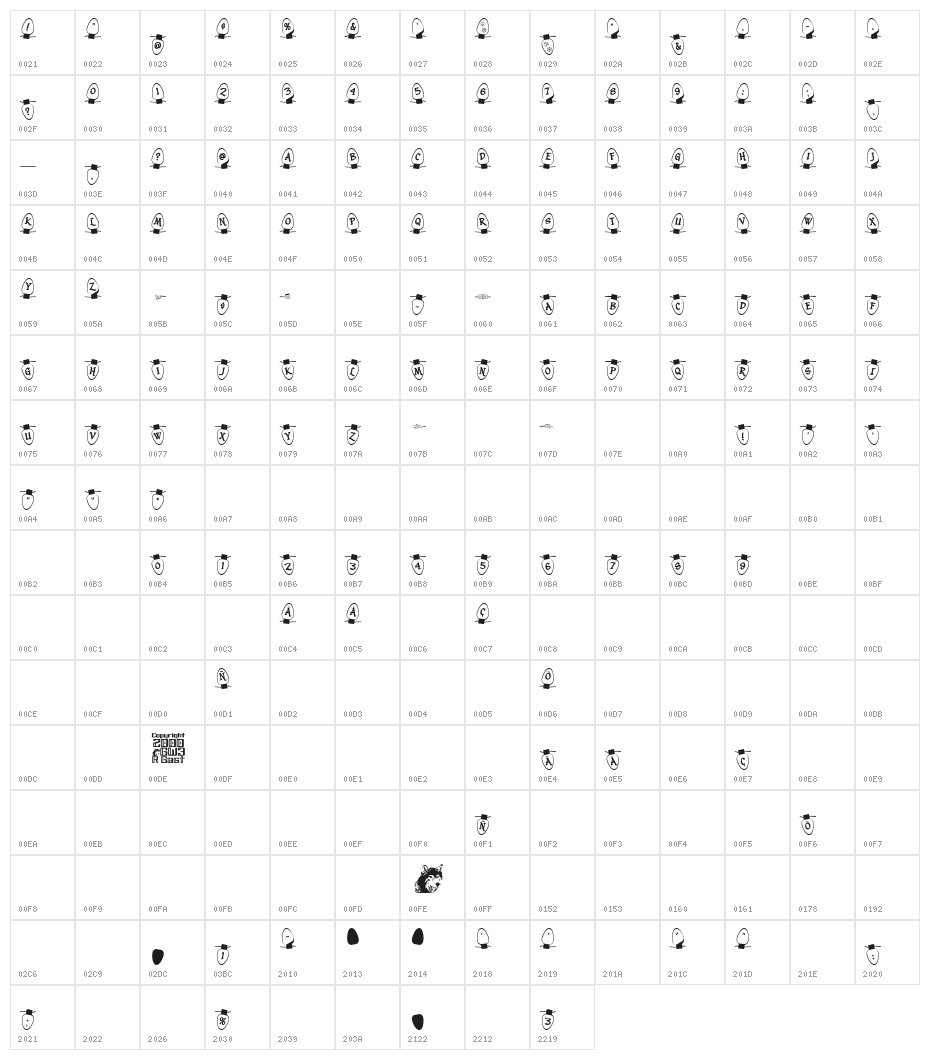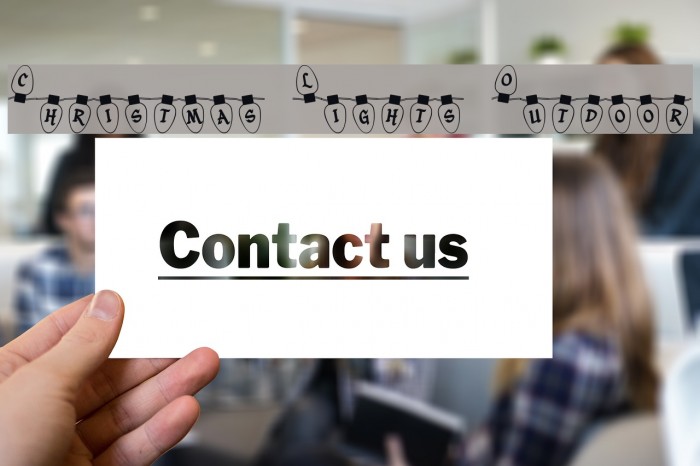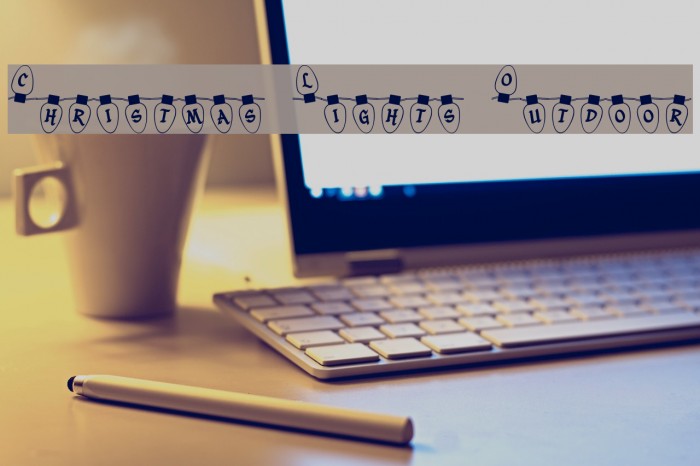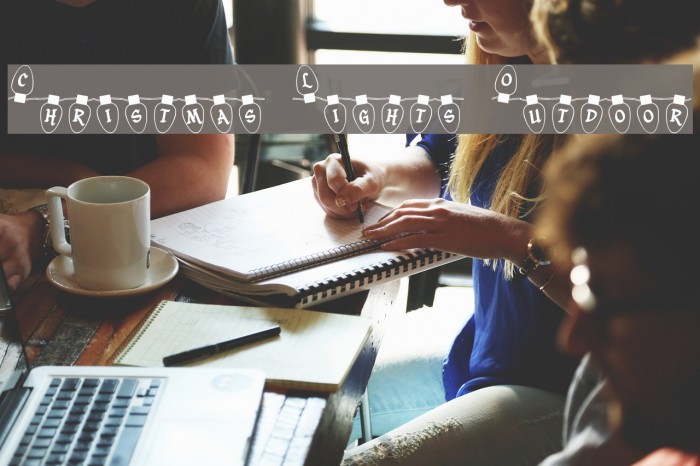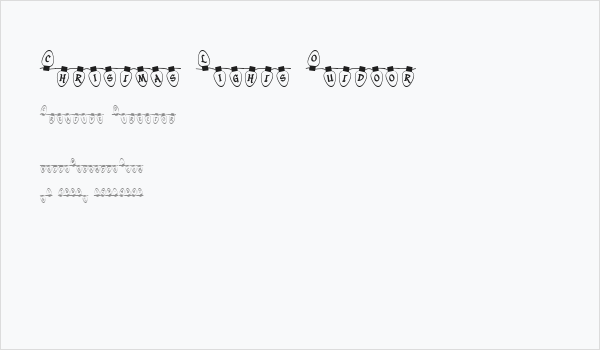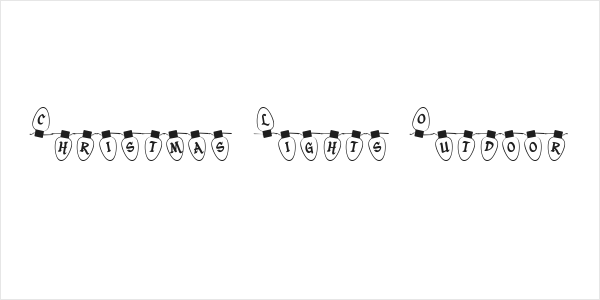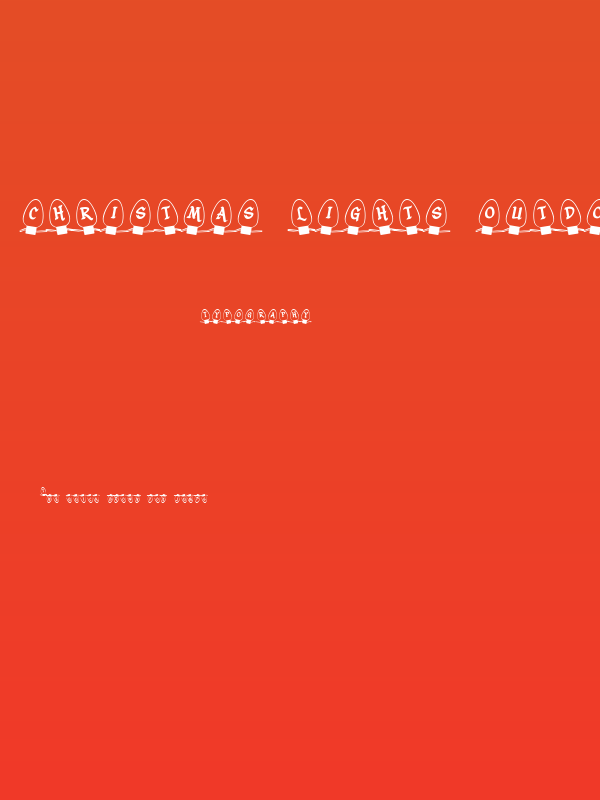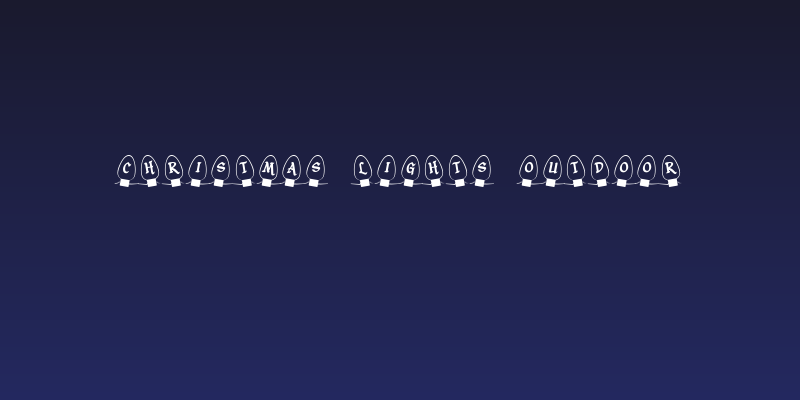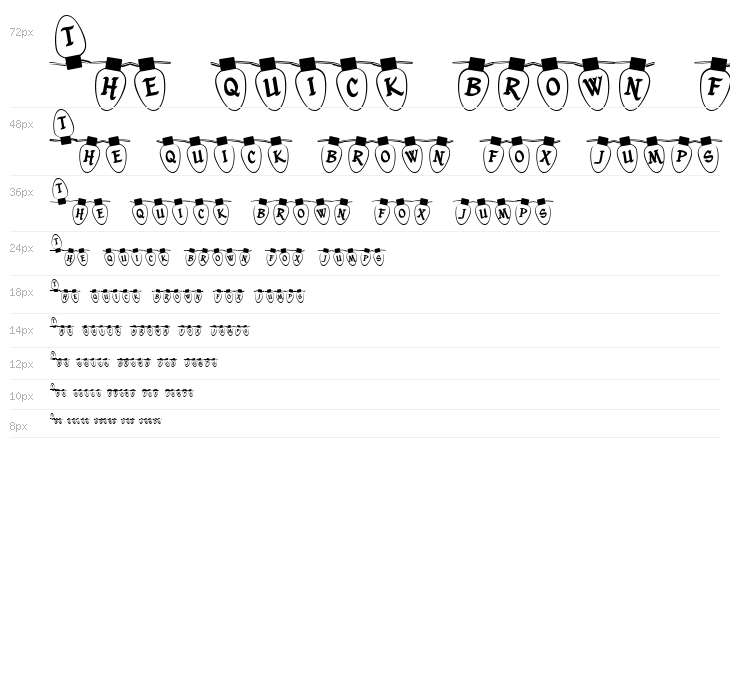
Christmas Lights Outdoor Font
Christmas Lights Outdoor Description
This playful and festive font is designed to resemble Christmas lights, with each character encased in a bulb shape. The letters are bold and slightly whimsical, capturing the joyful spirit of the holiday season. The uppercase and lowercase letters, along with numbers and special characters, are all uniquely styled to fit within the bulb design, giving a cohesive and decorative appearance. The font is perfect for holiday-themed projects, adding a touch of cheer and creativity. Its distinctive style makes it stand out, making it ideal for eye-catching designs.
| Proposed Projects | Ideal for holiday cards, festive banners, seasonal advertisements, and decorative posters. |